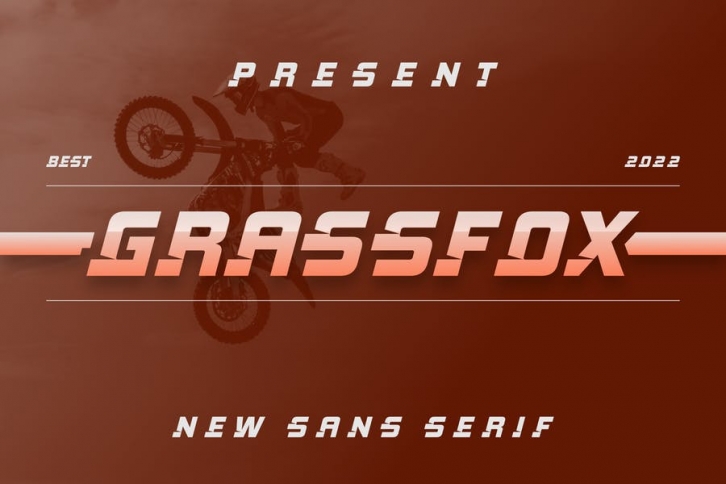
Introducing our new product Grassfox font - Modern Font
Grassfox font - Modern Font is a bold and authentic display font. The font is suitable for any branding project like logo, t-shirt printing, esport, and many more. outstanding in a wide range of contexts.